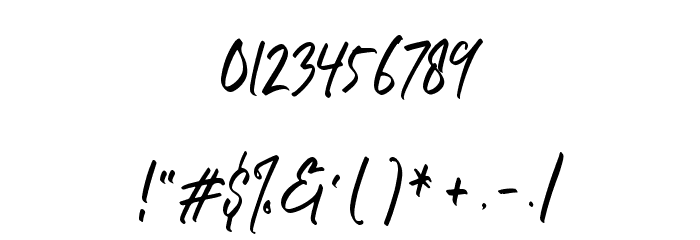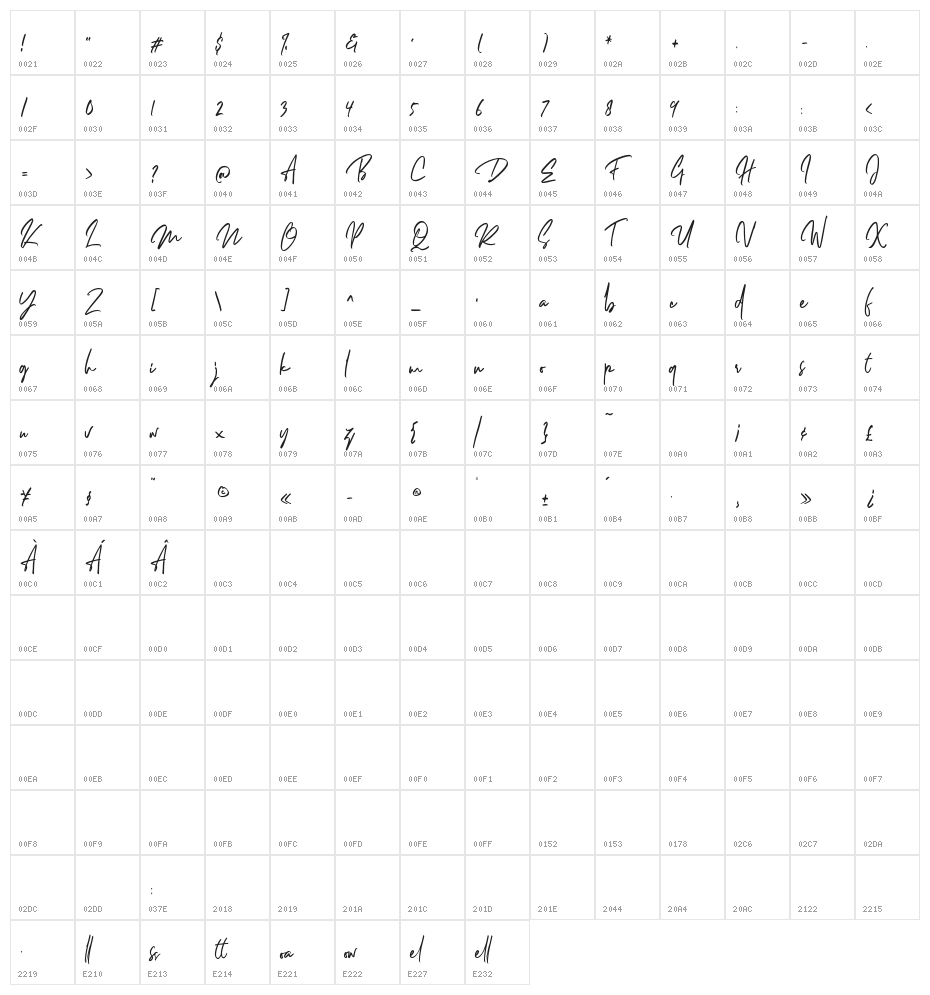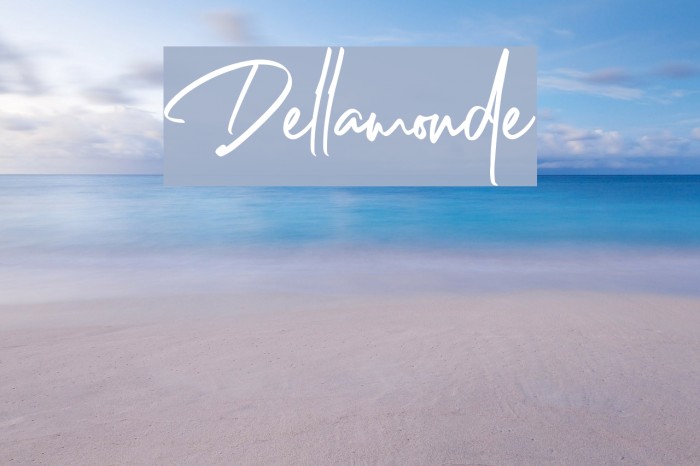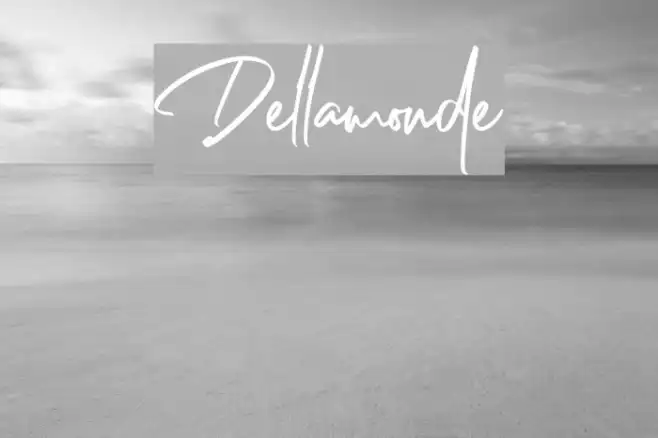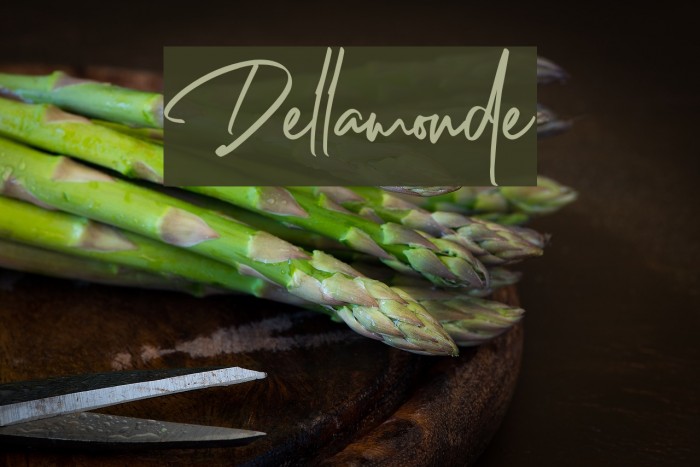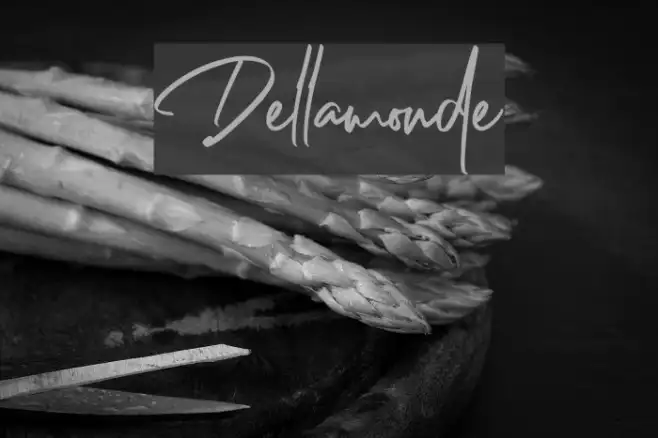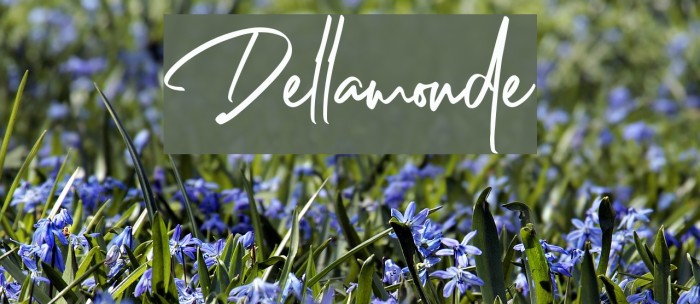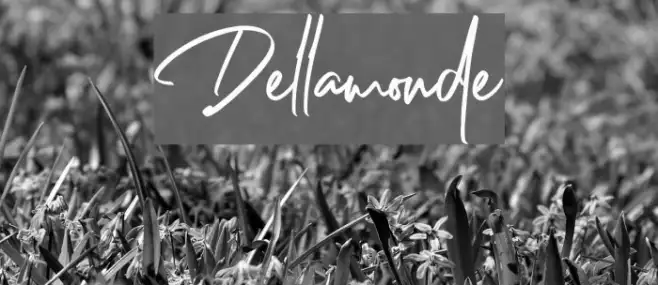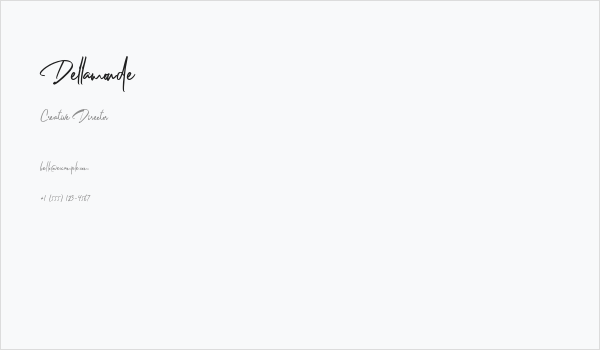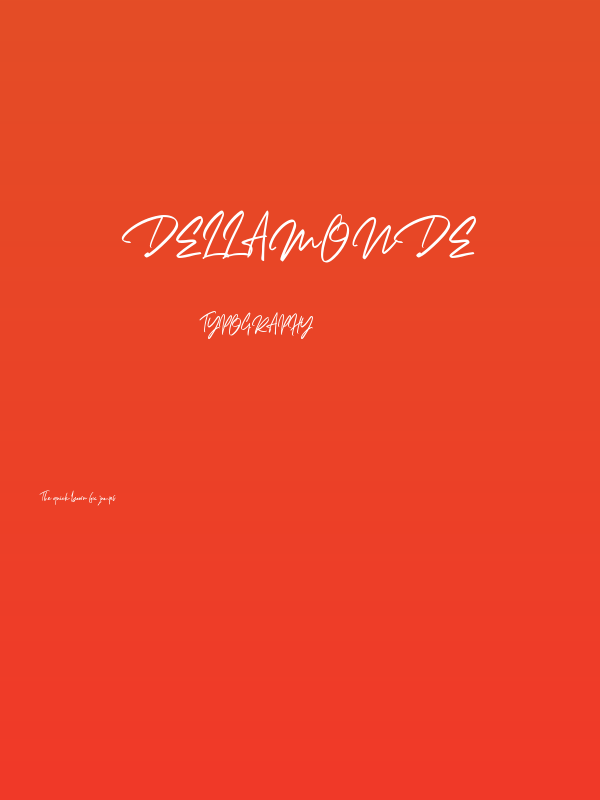
Dellamonde Font
Dellamonde Description
This font exudes a dynamic and expressive handwritten style, characterized by its fluid and cursive strokes. The letters are connected in a natural flow, giving it a personal and artistic touch. The uppercase letters are bold and slightly slanted, while the lowercase letters maintain a consistent rhythm with a playful bounce. The numerals are distinct yet harmonize well with the alphabetic characters. Special characters are crafted with the same attention to detail, ensuring they blend seamlessly with the overall aesthetic. This font is ideal for projects that require a personal, creative, or artistic flair, such as invitations, greeting cards, or branding materials. Its unique style captures attention and adds a touch of elegance and individuality to any design.